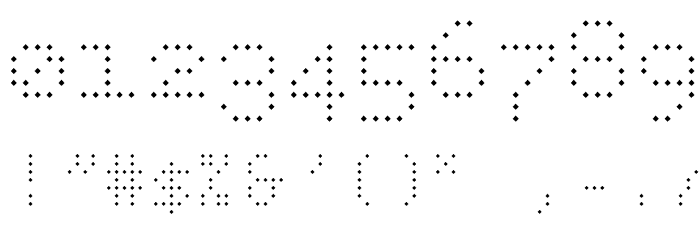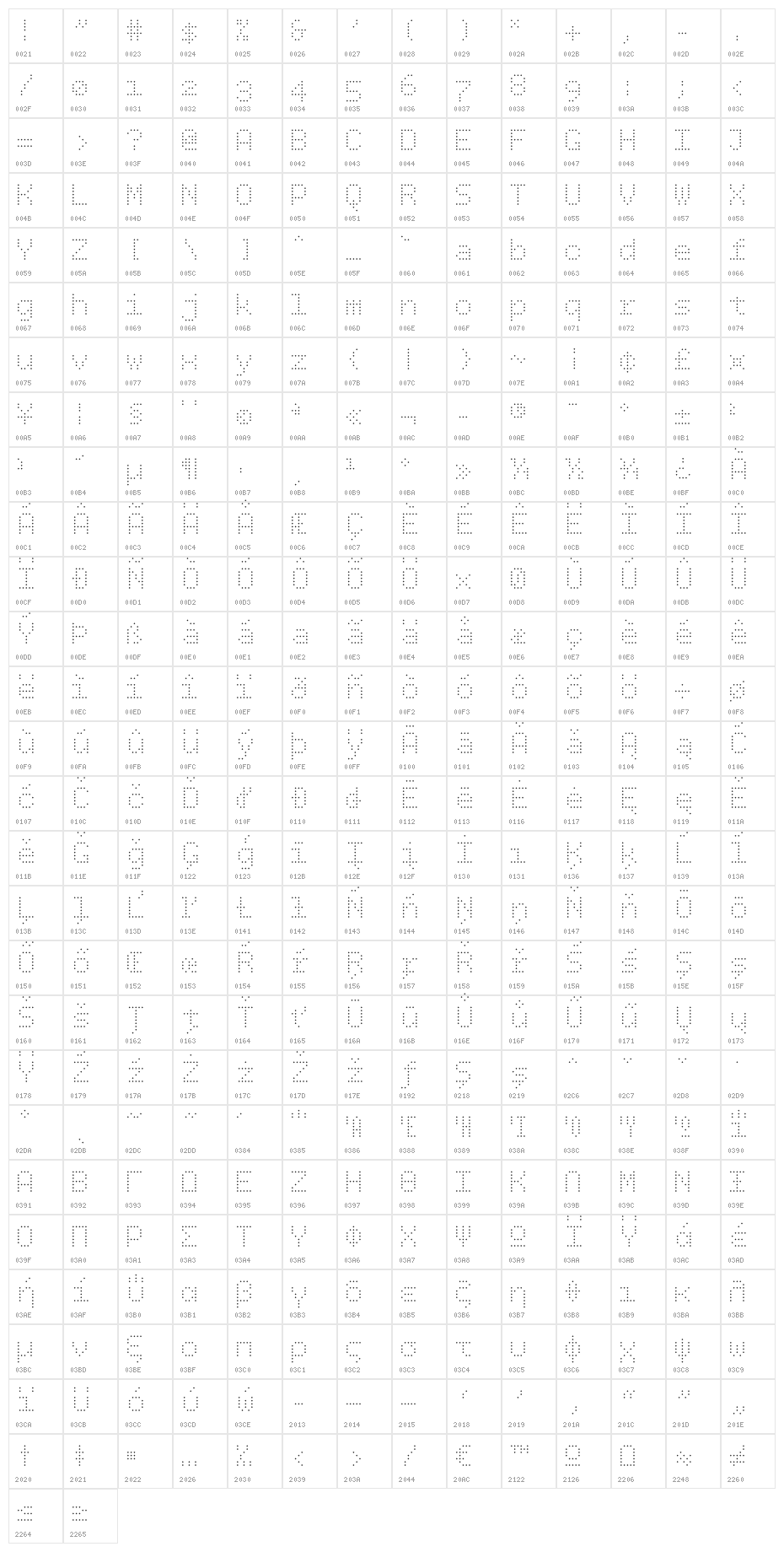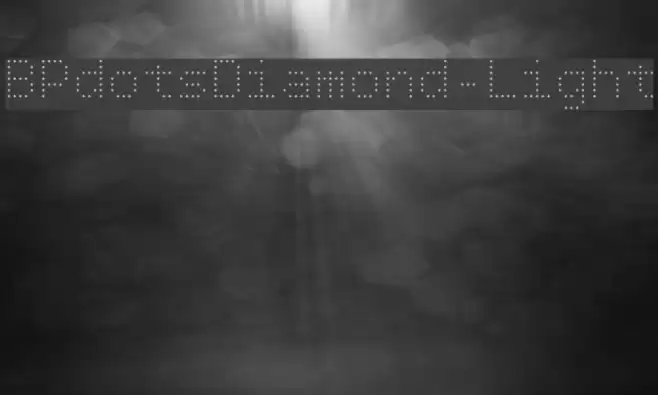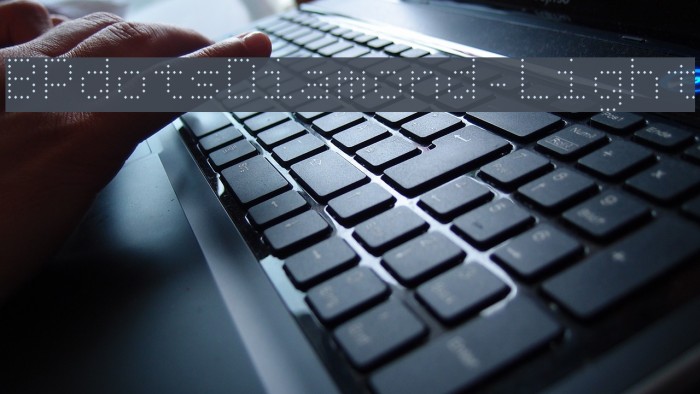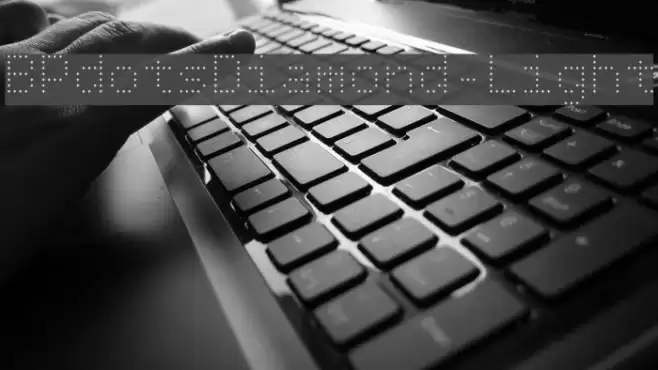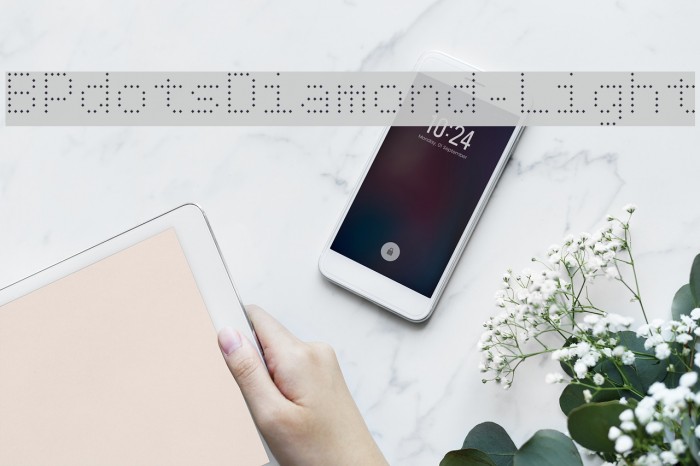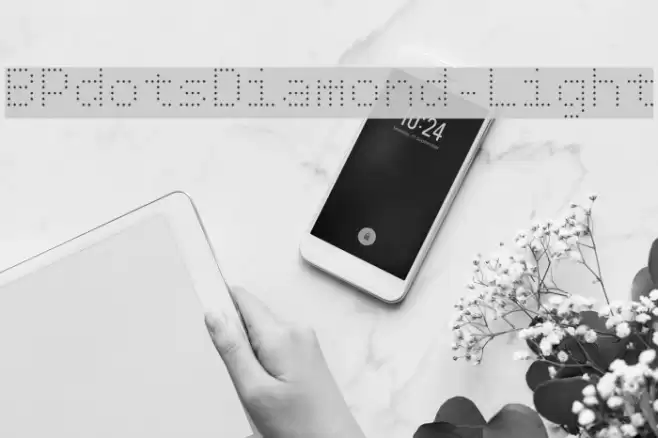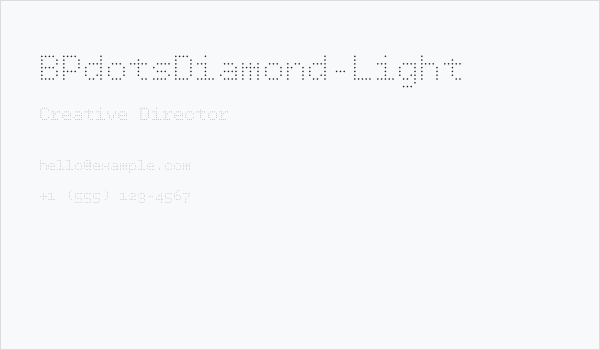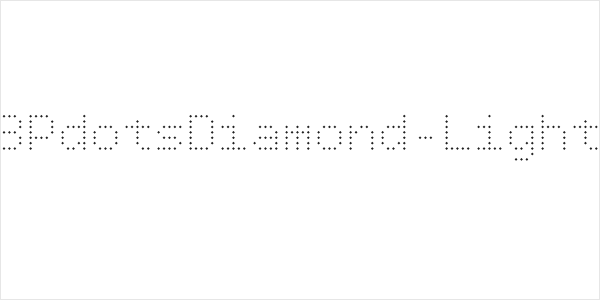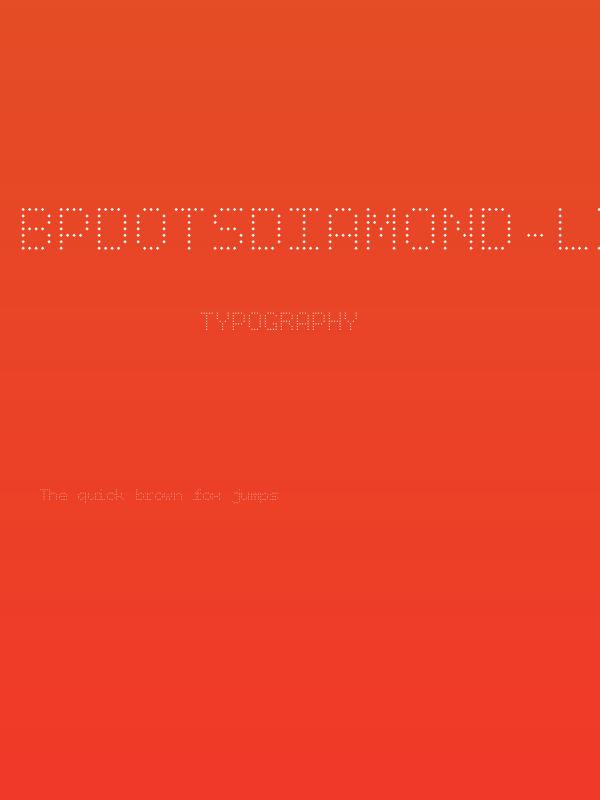
BPdotsDiamond-Light Font
BPdotsDiamond-Light Description
This font features a unique design composed entirely of small diamond-shaped dots, creating a dotted pattern that forms each character. The uppercase and lowercase letters, as well as numbers and special characters, are all constructed using this consistent dot motif. The style is light and airy, with each character maintaining a clear and distinct shape despite the unconventional construction. The spacing between the dots is even, ensuring legibility while providing a decorative and modern aesthetic. This font is particularly suitable for creative projects that require a playful or digital-inspired look.
| Proposed Projects | Ideal for digital art, tech-themed designs, posters, and creative branding projects. |